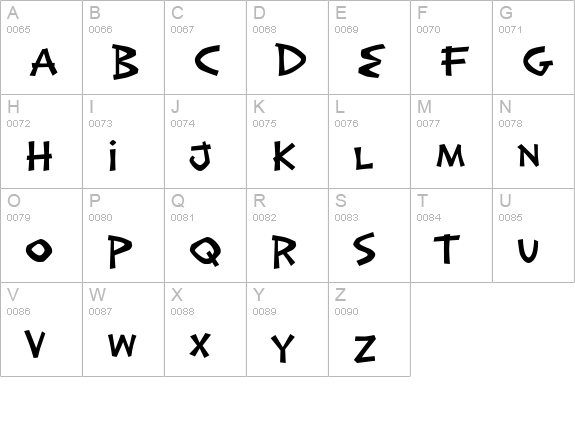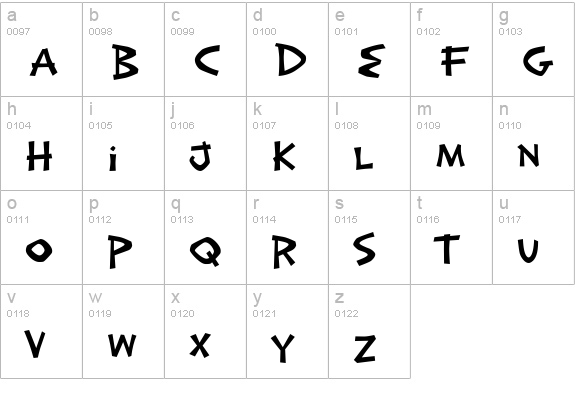
Exotic Island BTN Font Details
Exotic Island BTN font is a captivating and unique typeface that transports you to a tropical paradise with its exotic and vibrant design. This font features intricate details and elegant curves that give off a sense of adventure and mystery. Perfect for adding a touch of exotic flair to your projects, Exotic Island BTN font will surely make your designs stand out. The best part? Exotic Island BTN font is available for free download at FontsMarket.com! Get your hands on this stunning font and let your creativity run wild with its endless possibilities. Add a touch of exotic charm to your designs today with Exotic Island BTN font - the perfect choice for all your tropical-themed projects.